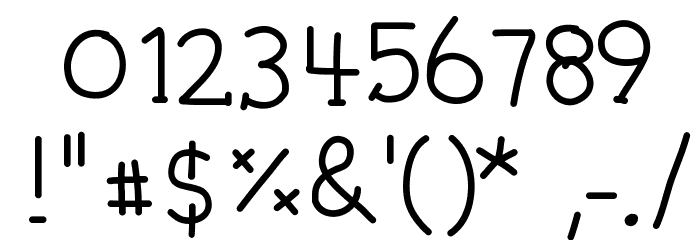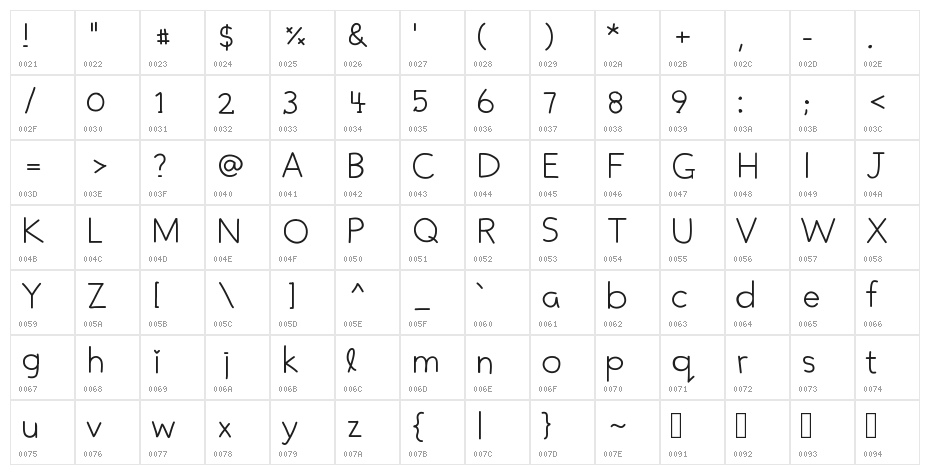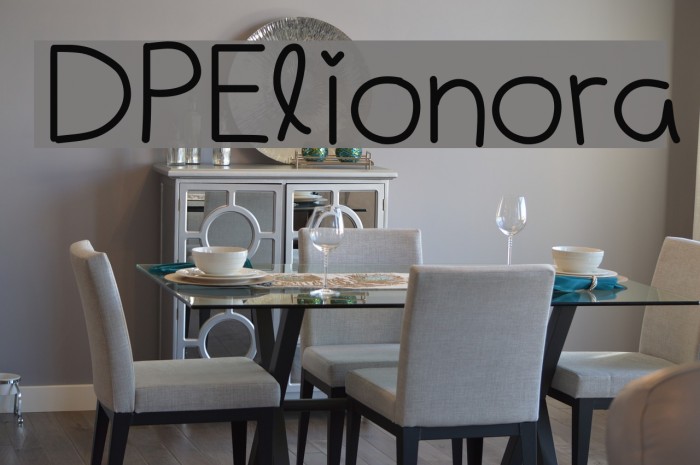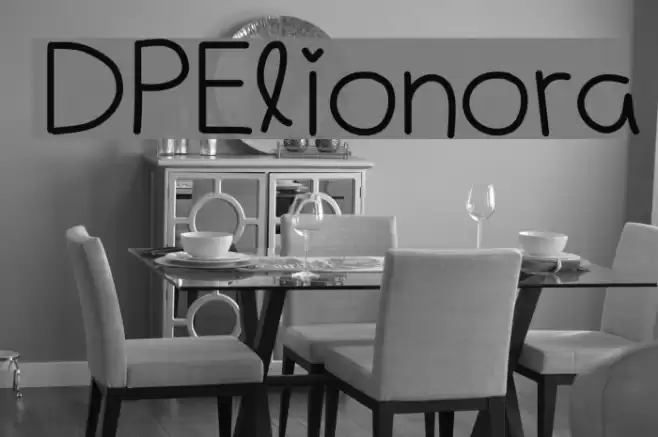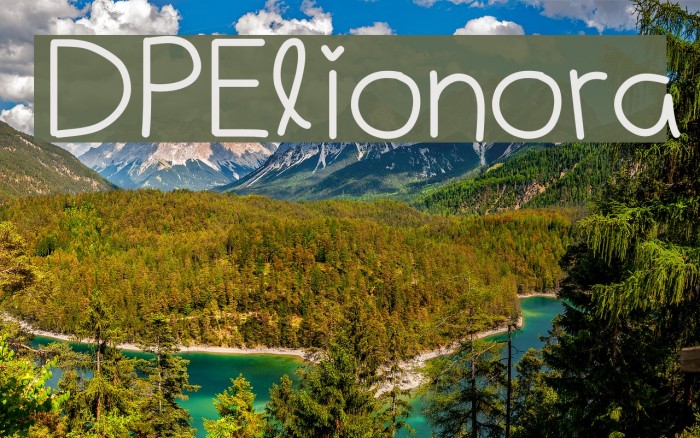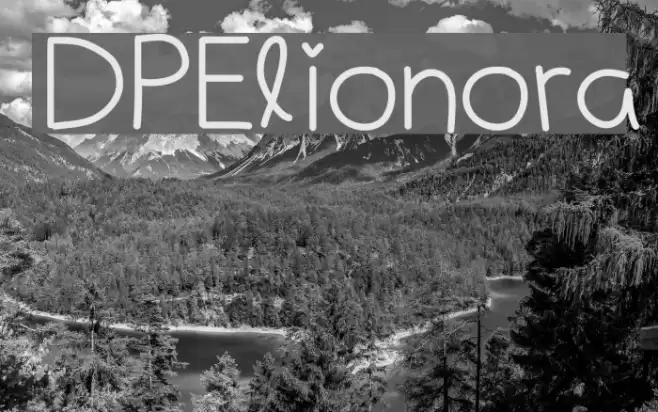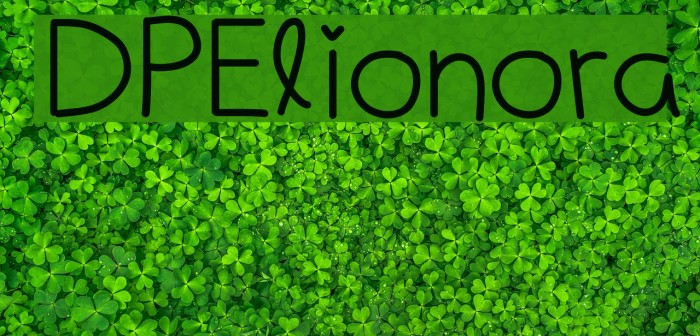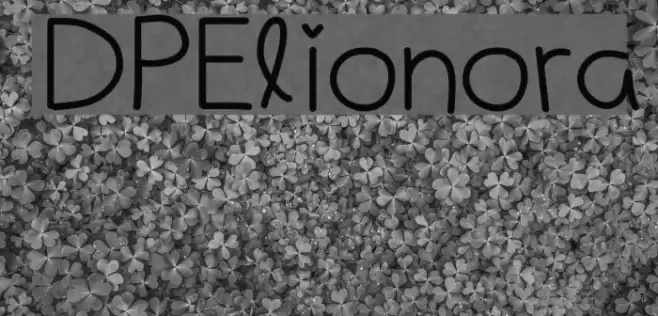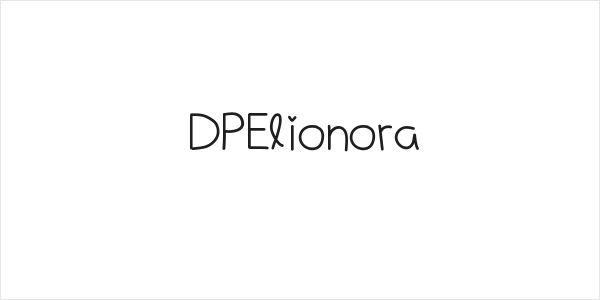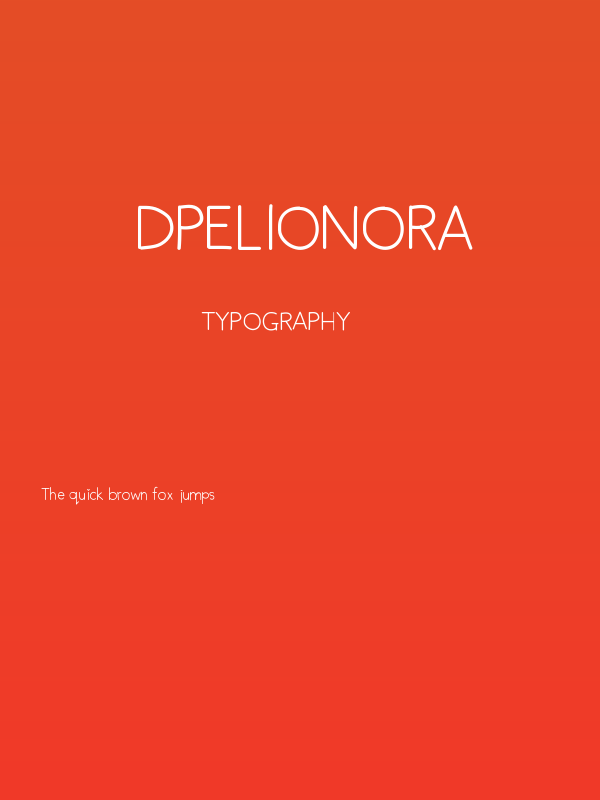
DPElionora Font
DPElionora Description
This font features a playful and whimsical design with rounded edges and a casual feel. The characters are slightly elongated, giving them a unique and approachable appearance. The uppercase and lowercase letters maintain a consistent style, with smooth curves and a friendly demeanor. The numerals and special characters are designed to match the overall aesthetic, ensuring a cohesive look across all text. This font is perfect for projects that require a touch of personality and charm, making it ideal for creative and informal applications.
| Proposed Projects | Ideal for children's books, greeting cards, playful branding, and informal invitations. |